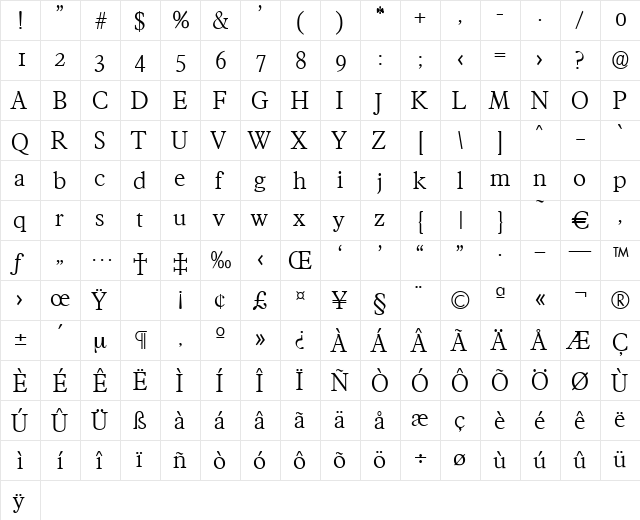
Francisco-Light Regular
Design Context for Francisco-Light Typeface
Francisco-Light offers clean, dependable letterforms without strong stylistic allegiance, making it a practical choice for designers who need flexibility. Its slender proportions lend an understated elegance to any composition.